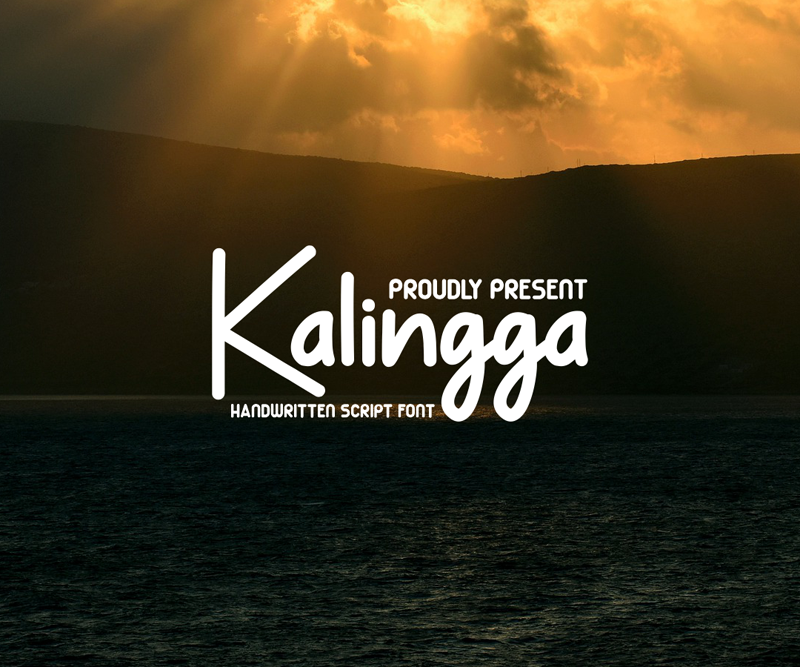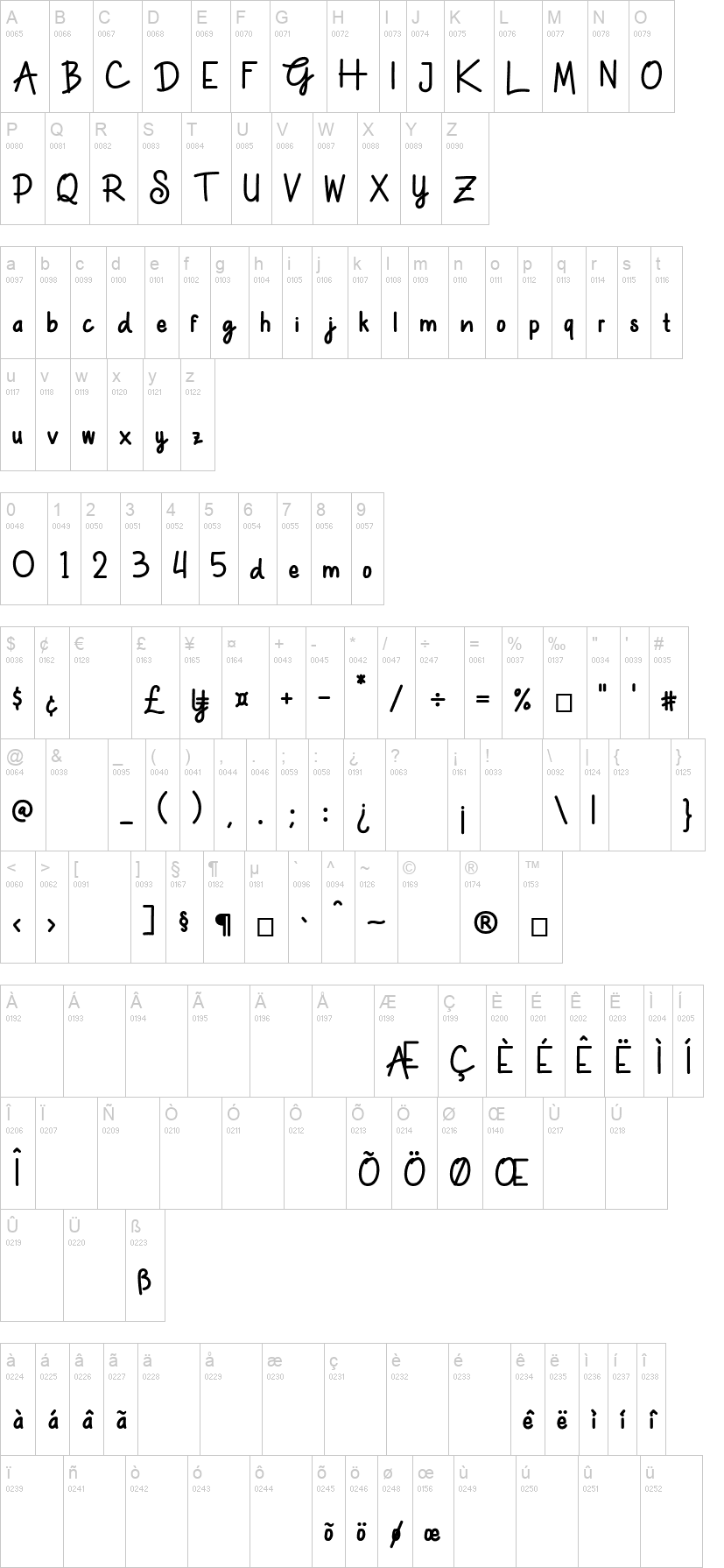
Note of the authorKalingga simple fonts are font designs that are made for various vector designs font is a minimalist script type fonts. Kalingga font is a sophistication with its lettering.